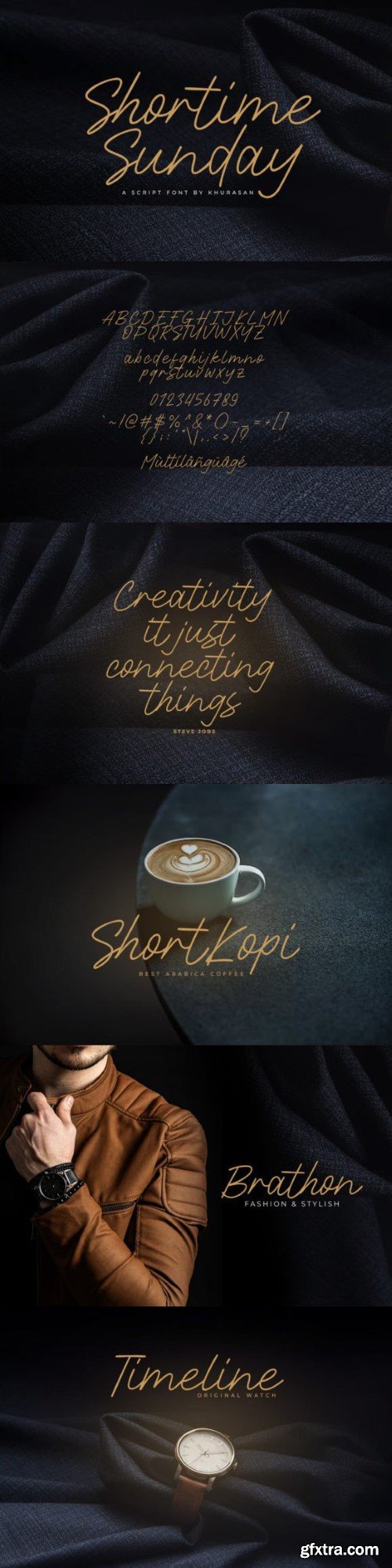
短时间星期日字体
Shortime Sunday is a clean, stylish, modern, and elegant script font perfect for posters, logos, magazines, book covers, banners, and many more! Get this amazing font, and use it to create lovely designs. It can easily be matched to an incredibly large set of projects, so add it to your creative ideas and notice how it makes them stand out!